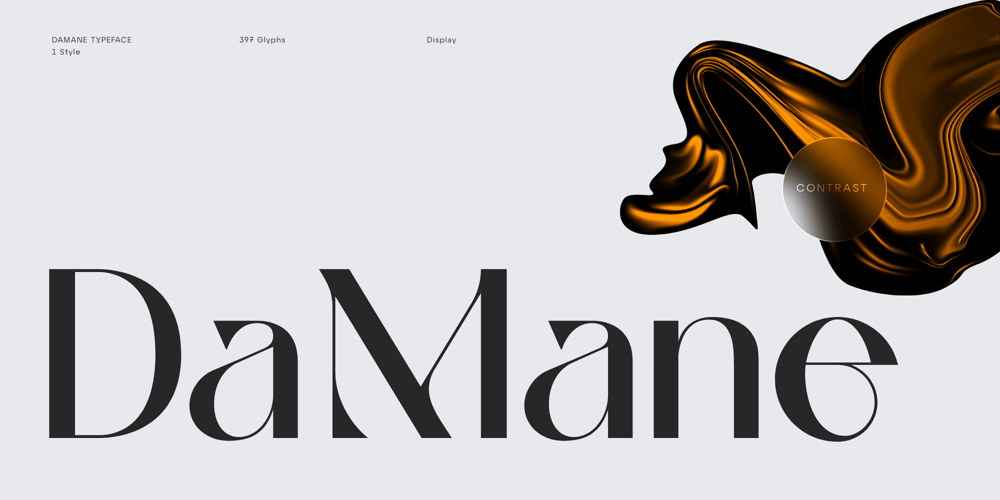
DaMane Font Family was designed by Tuğrul Mustafa Günaydın and published by Tugrul Mustafa Gunaydin. DaMane contains 1 styles and family package options. DaMane Display combines the decorative design style used in the past and the minimal design used today. Simple lines, sharp and radius corners come together harmoniously in the letters. High contrast letters create an elegant visual perception. It has nearly 400 glyph sets.